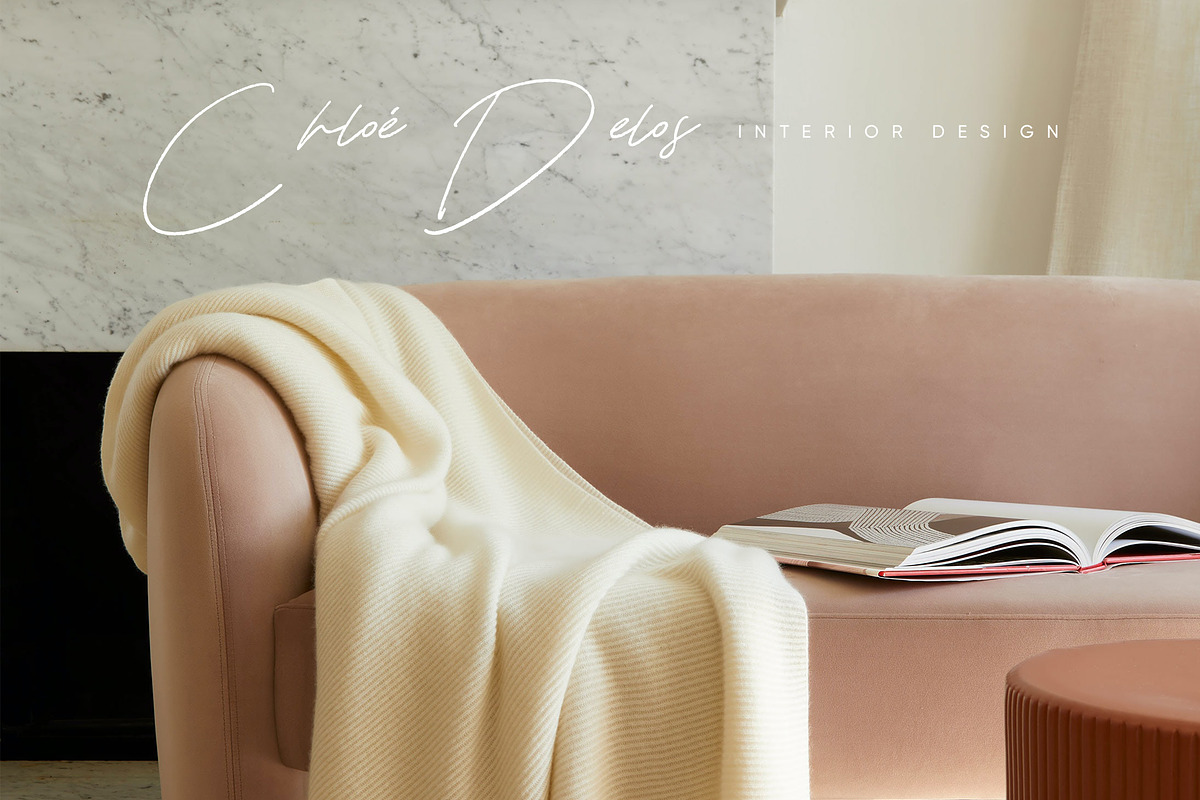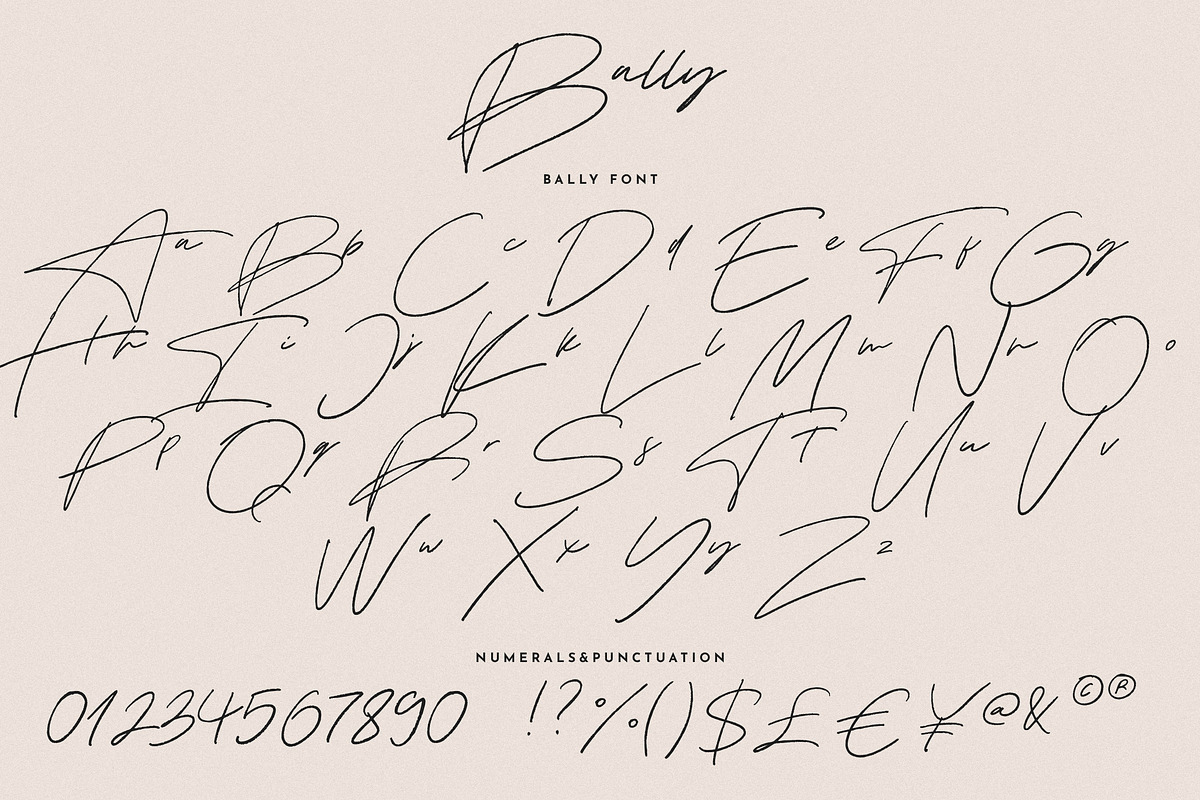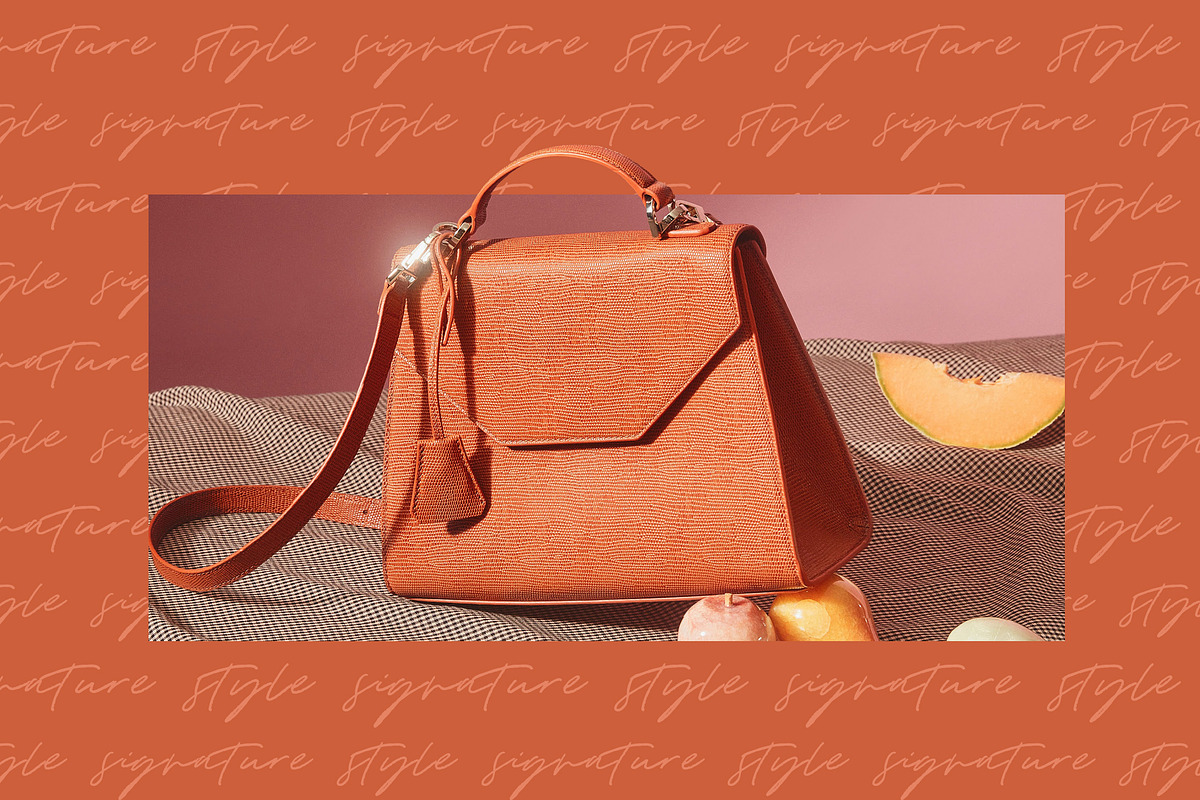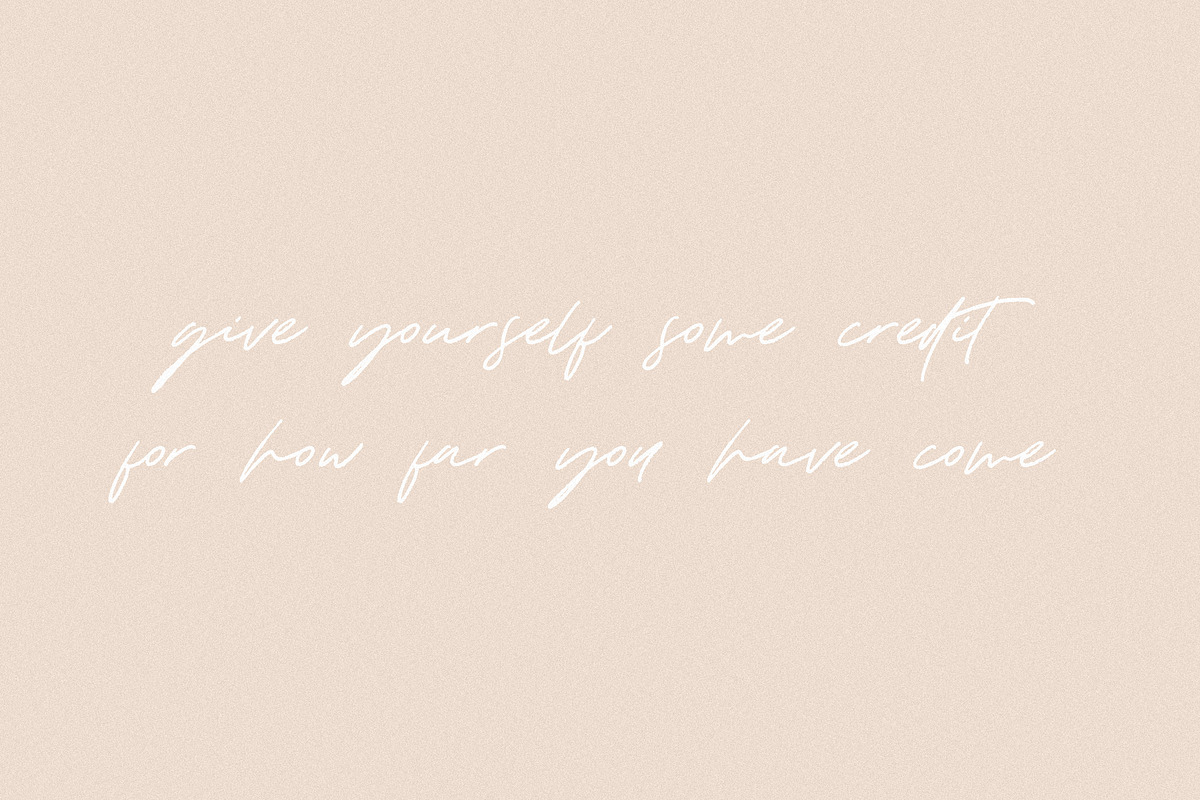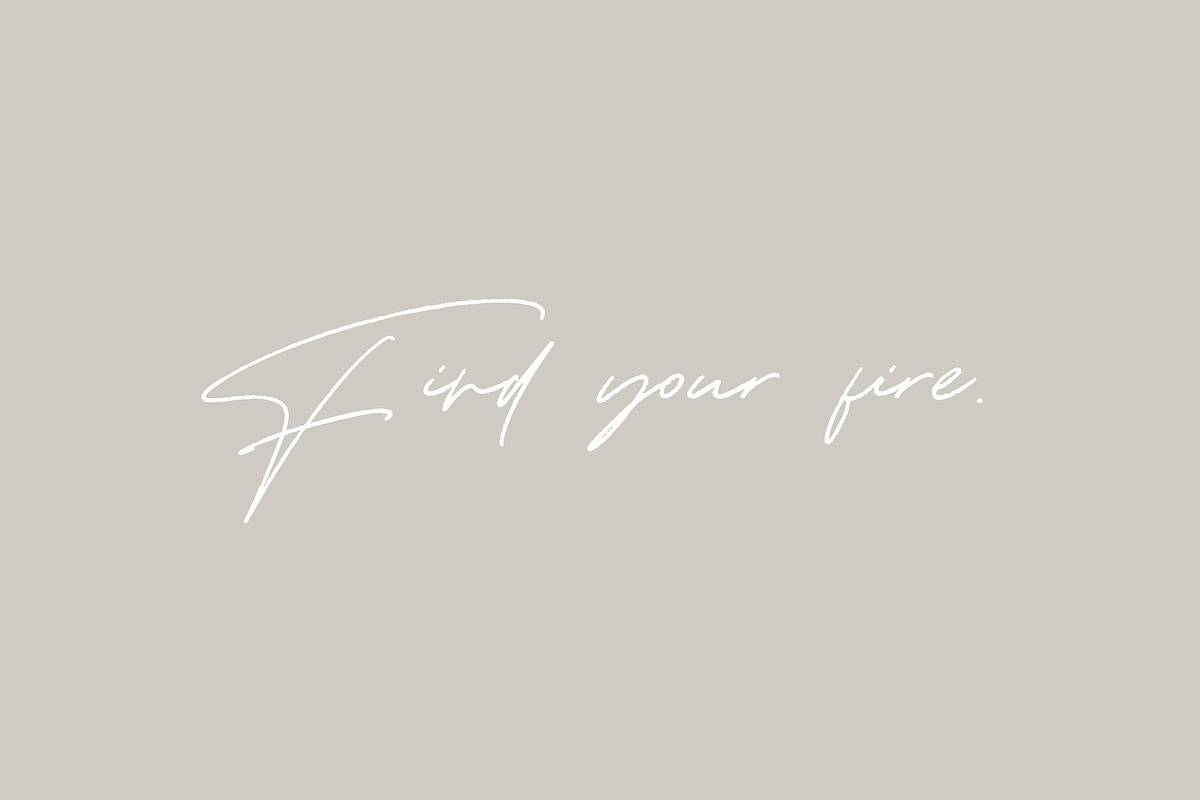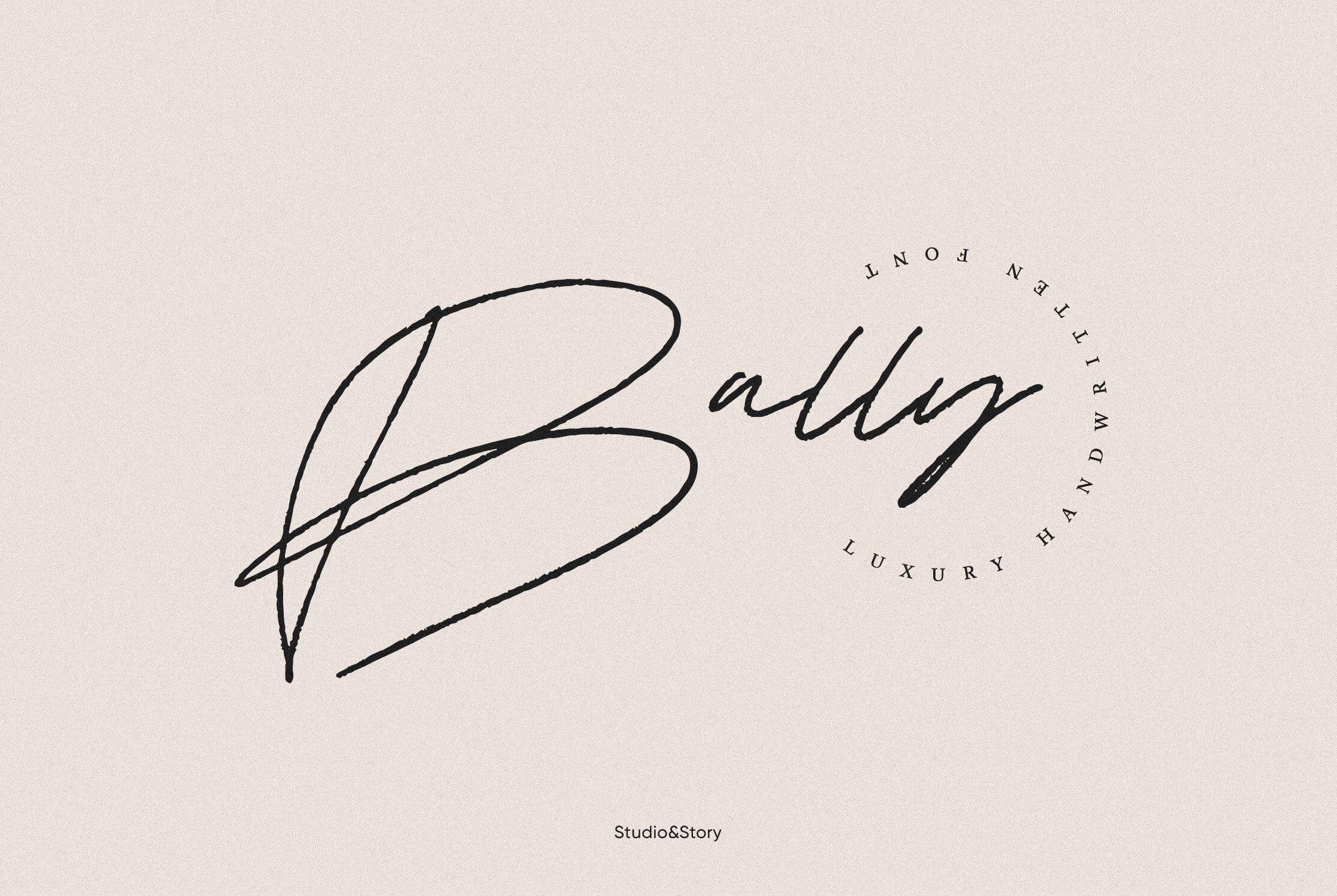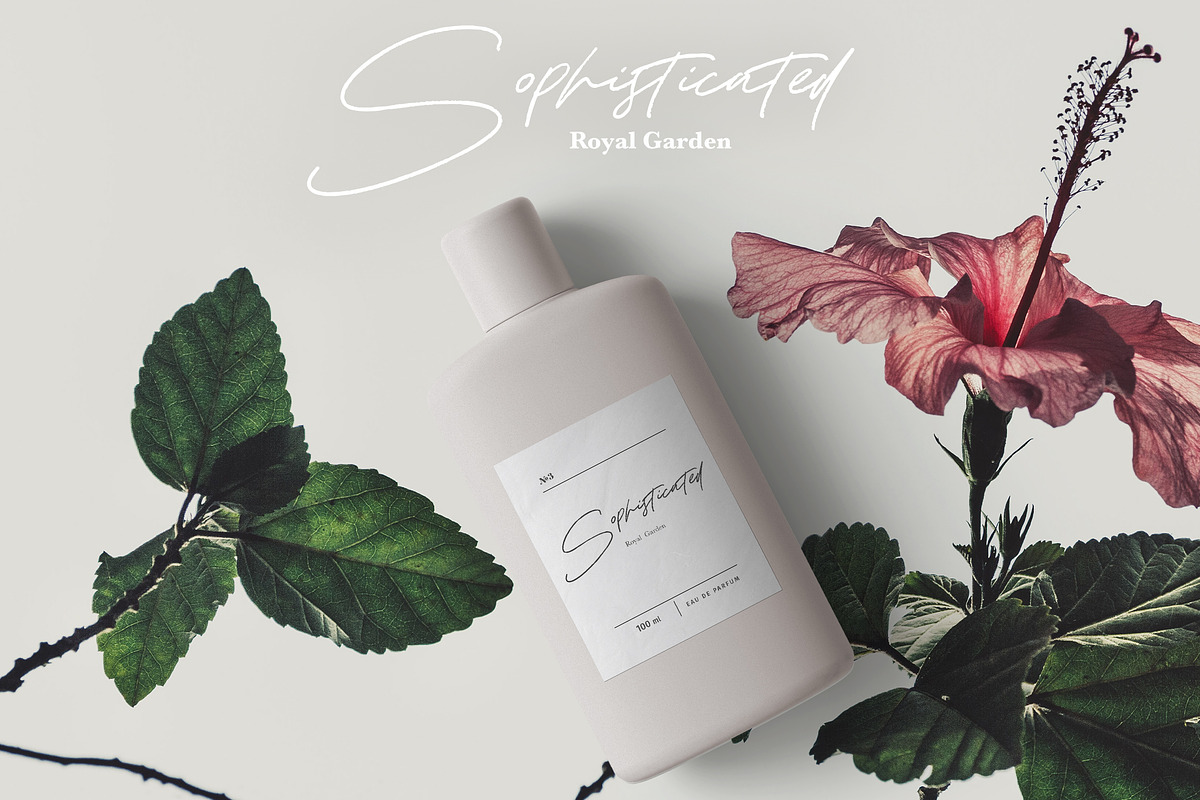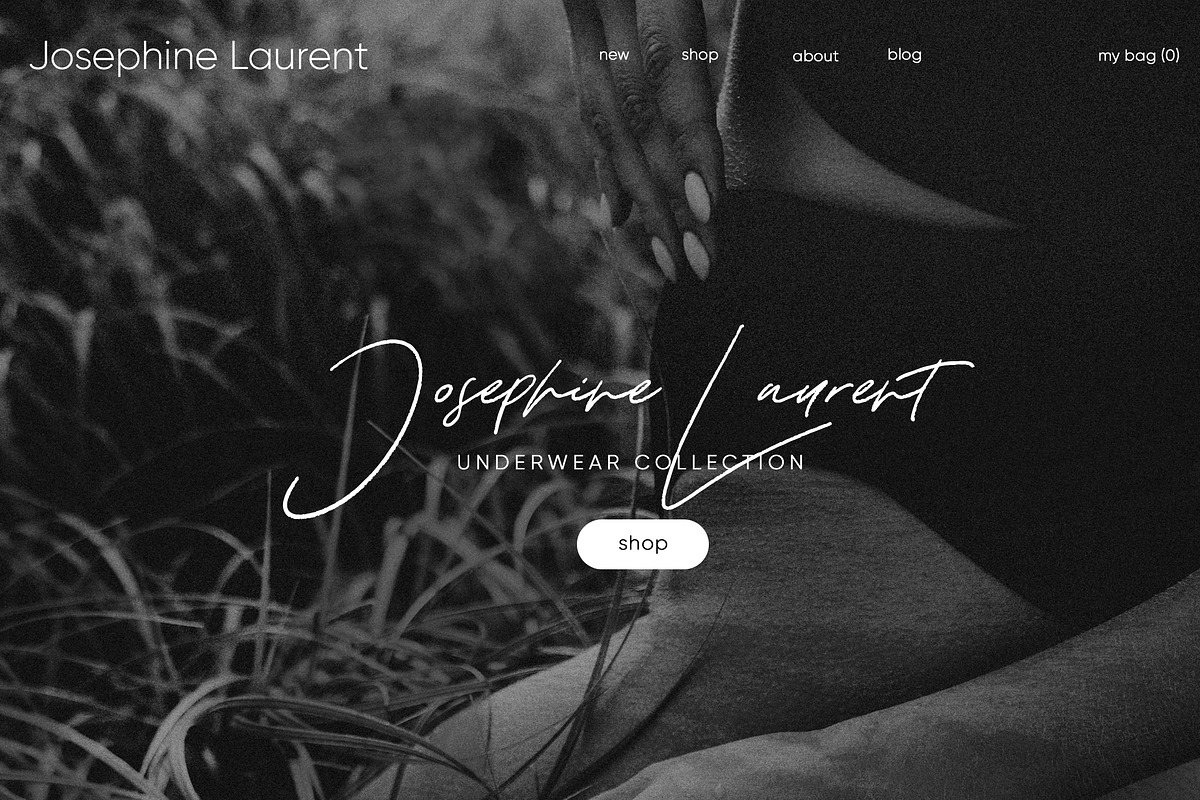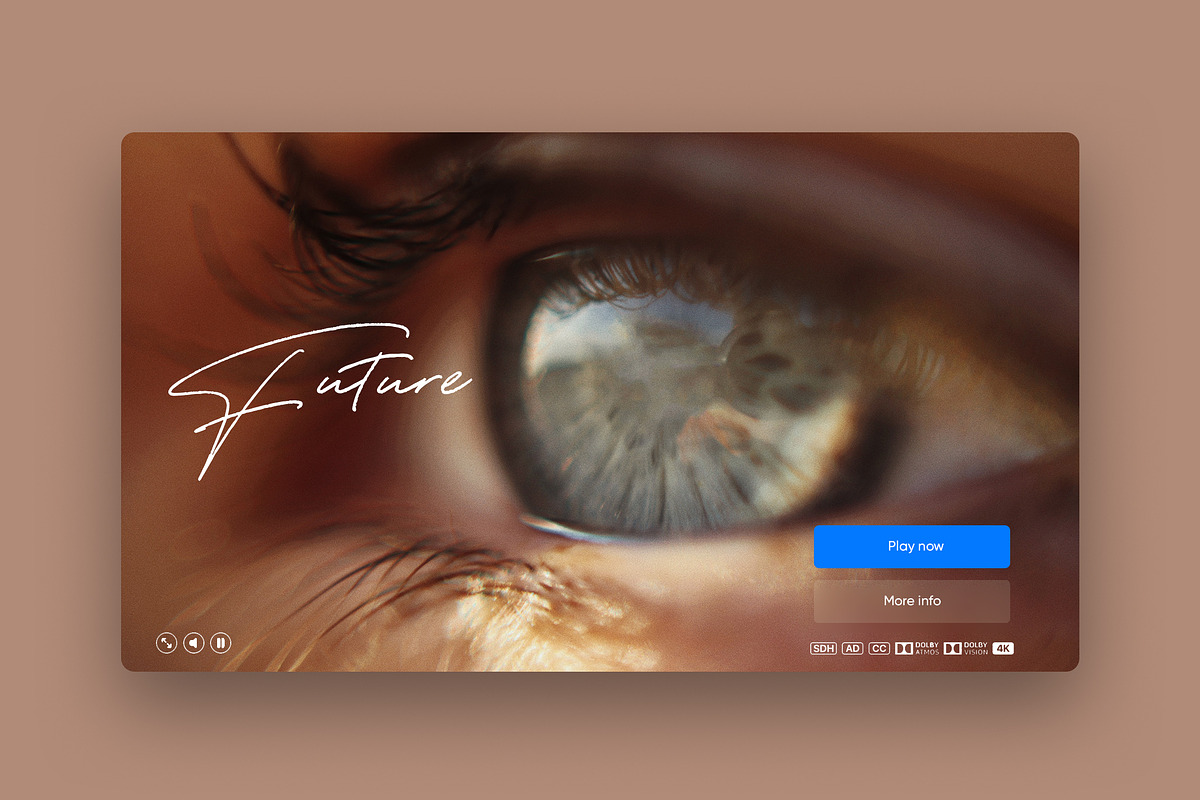
Bally | Handwritten Script Font
Bally is a handwritten script font with a smooth connected flow and a lightly textured finish that gives every word a more natural, expressive feel. It captures the ease of real handwriting while still feeling considered, balanced, and clear enough for polished design work.
Its character sits somewhere between a personal signature and a refined display script, which makes it especially useful for creatives who want typography with warmth, movement, and presence. The strokes feel fluid and instinctive, while the subtle roughness adds depth and a more tactile quality, helping layouts feel less flat and more alive.
Bally works beautifully in branding, logo design, packaging, editorial layouts, social media graphics, invitations, website headers, and visual identities that need a more human touch. It brings personality without becoming too decorative, which makes it easy to use in both expressive and more minimal design directions.
What makes Bally especially appealing is its balance. It feels stylish without trying too hard, distinctive without losing readability, and expressive without overwhelming the composition. Whether used as a wordmark, a signature element, or a supporting accent, it helps create work that feels thoughtful, current, and visually memorable.
For designers, studios, and brands looking for a script font with natural rhythm, subtle texture, and a clean creative presence, Bally offers a versatile option that feels both personal and well crafted.
Bally is a handmade script font that includes uppercase and lowercase characters, numerals, and a wide range of punctuation. It also comes with multilingual support for English, Italian, French, Polish, German, Swedish, Spanish, Dutch, Portuguese, Norwegian, Malay, Indonesian, Finnish, and Filipino.